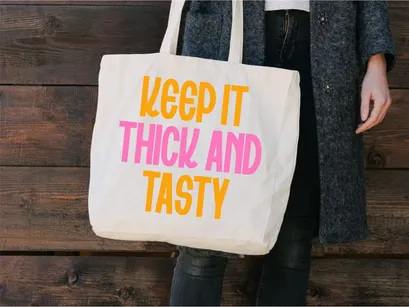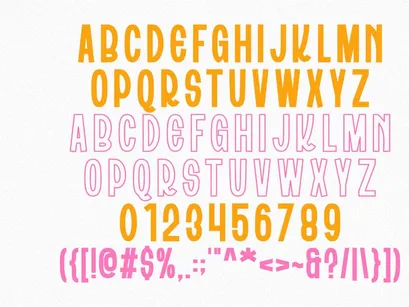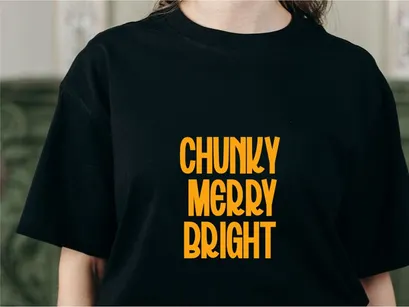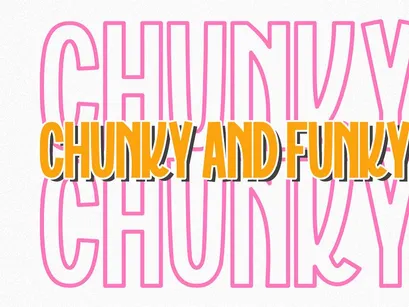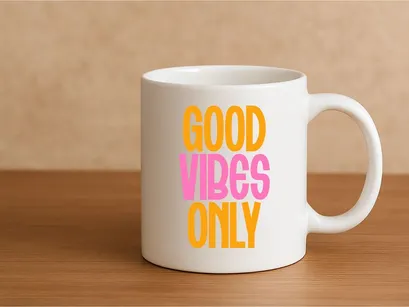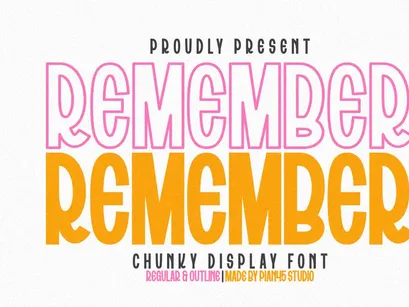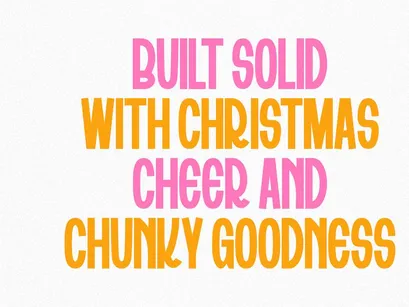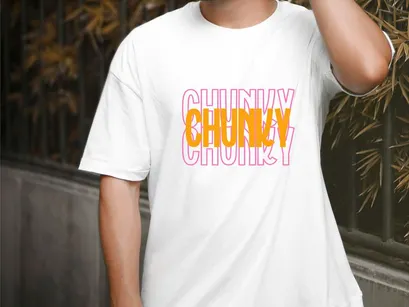
Remember is a vibrant and chunky Chunky Display Font that radiates playful energy and nostalgic charm. Featuring both Regular and Outline styles, this all-caps font is perfect for bold, layered designs, retro posters, fun branding, and any project needing a dominant yet approachable visual identity. Its soft, bubbly curves make it an excellent choice for merchandise, children's designs, and cheerful social media graphics.